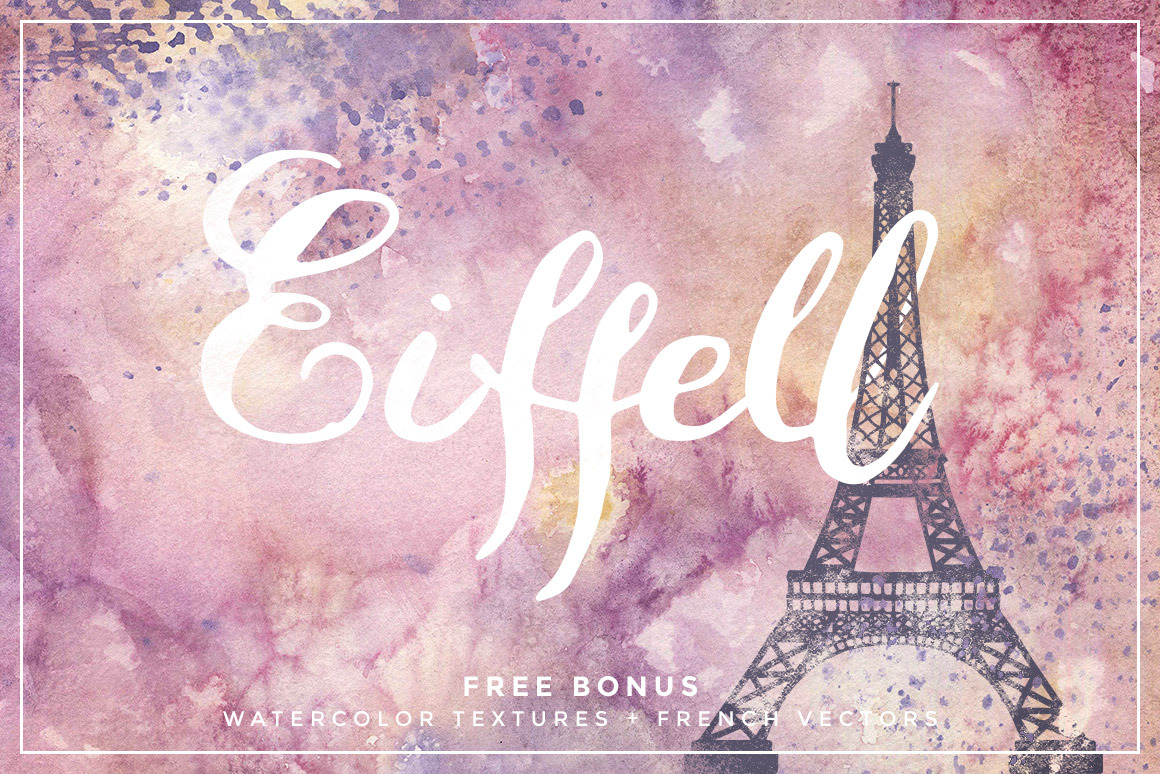
Eiffell Brush Script Font + Extras
Eiffell is a gorgeous, hand brushed, and unique typeface with French charm. With stunningly decorative capitals, it's perfect for logos, posters, typographic designs, and much more.
A flexible look helps Eiffell feel right at home in soft, feminine projects, or when used for old-world, hand scripted designs.